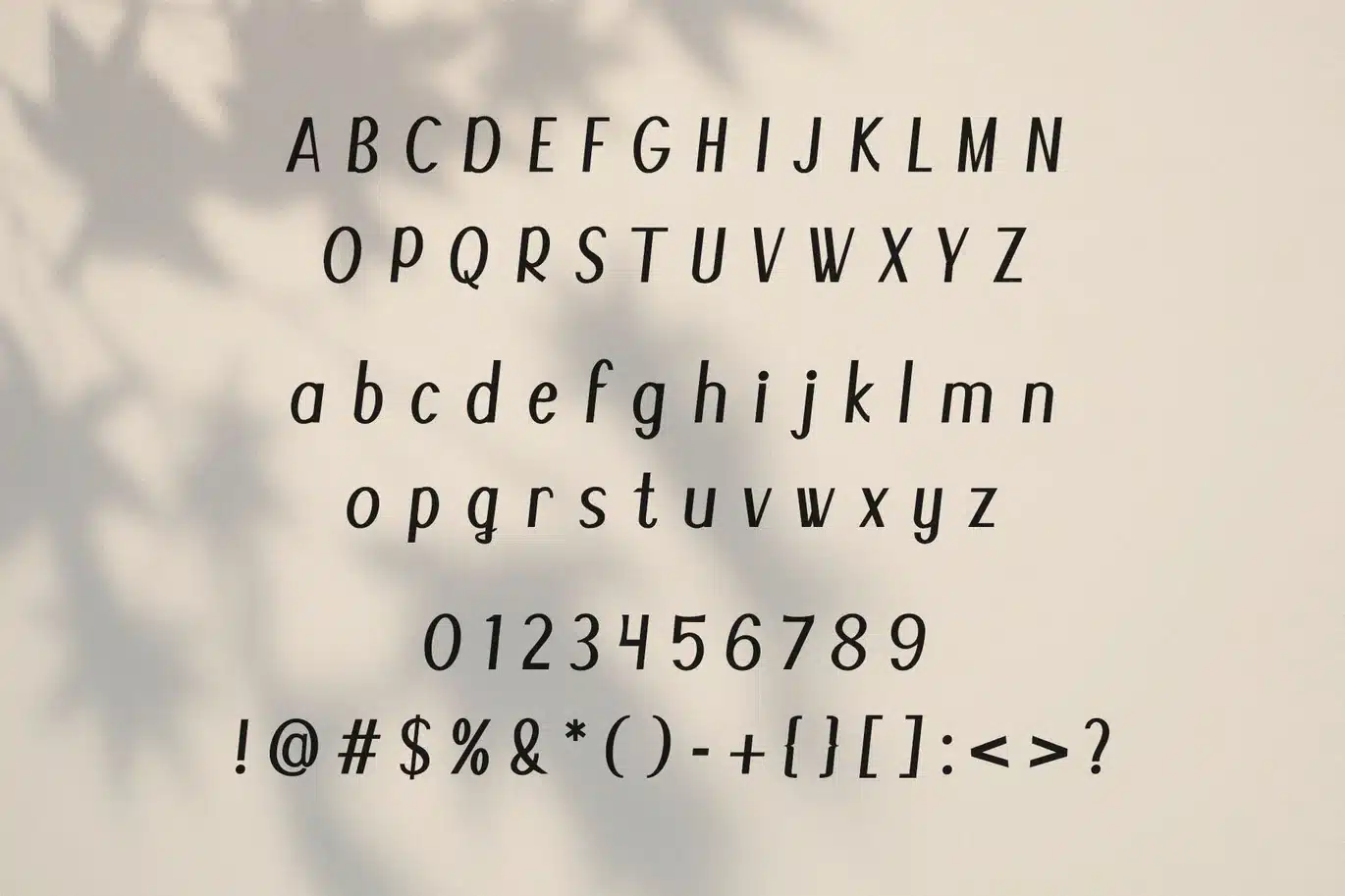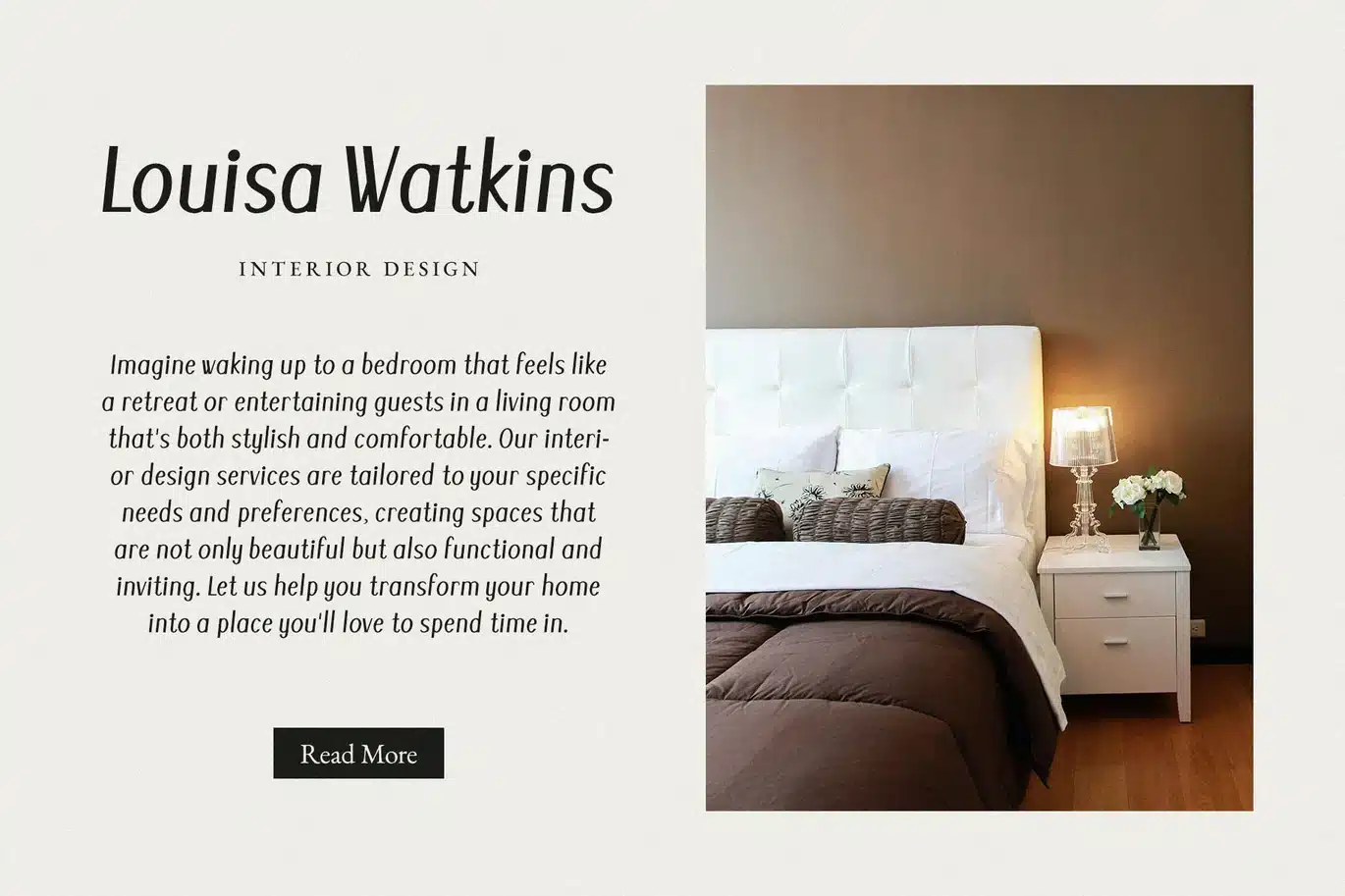
San Andres – Modern Display Sans Serif Font
San Andres is a versatile display sans serif font designed to make a statement. Its bold yet refined characters are perfect for headlines, logos, and other eye-catching graphic elements. Whether you're creating a minimalist or maximalist design, San Andres will elevate your work.